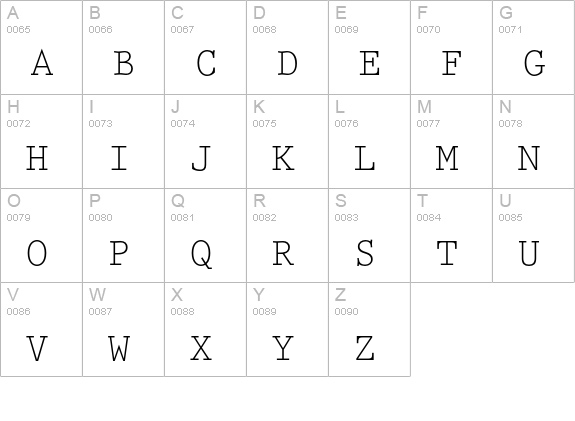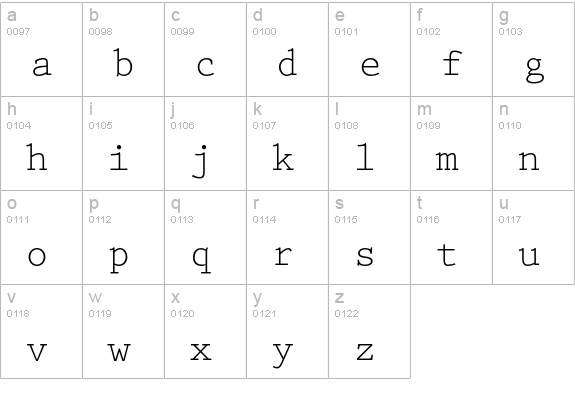
Prestige Elite Std Font Details
Prestige Elite Std font is a timeless and elegant typeface that exudes sophistication and professionalism. With its clean lines and classic style, this font is perfect for a wide range of design projects, from business documents to invitations and more. What sets Prestige Elite Std font apart is that it is available for free download at FontsMarket.com. This means that you can easily access this high-quality font without any cost, making it a valuable addition to your font library. Whether you need a font for print or digital designs, Prestige Elite Std offers versatility and style that will elevate your projects to the next level. Experience the beauty and versatility of Prestige Elite Std font today by downloading it for free at FontsMarket.com. Elevate your designs with this sophisticated and timeless typeface that is sure to make a lasting impression.